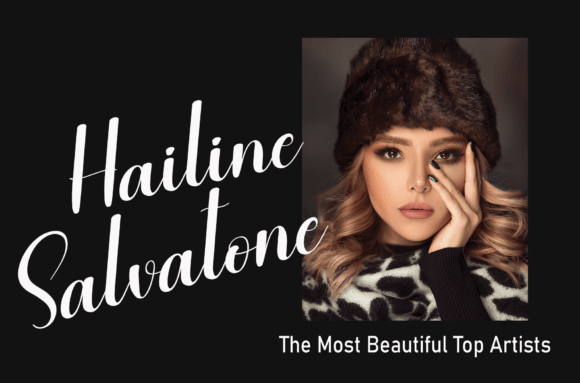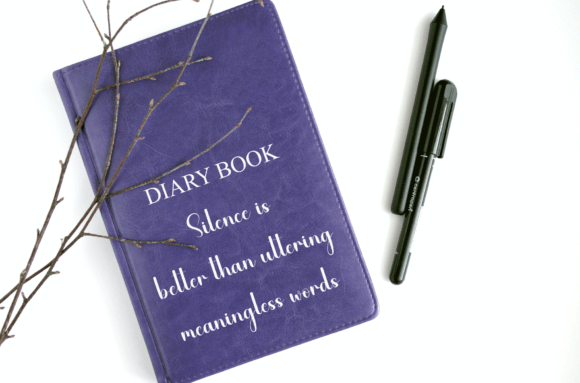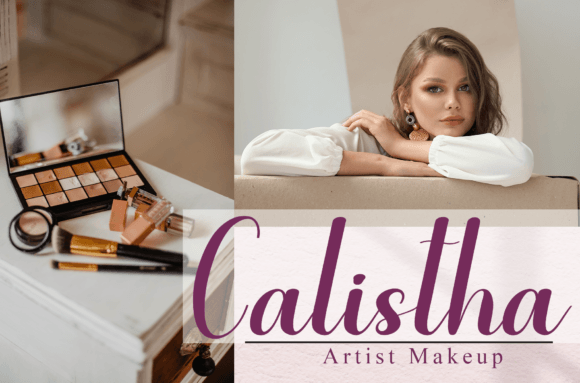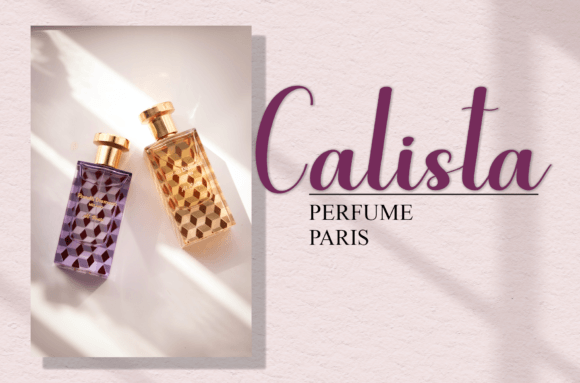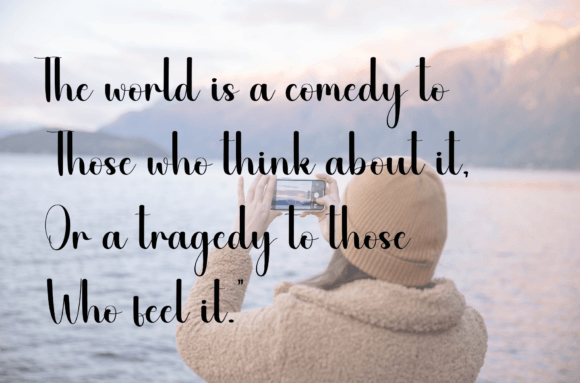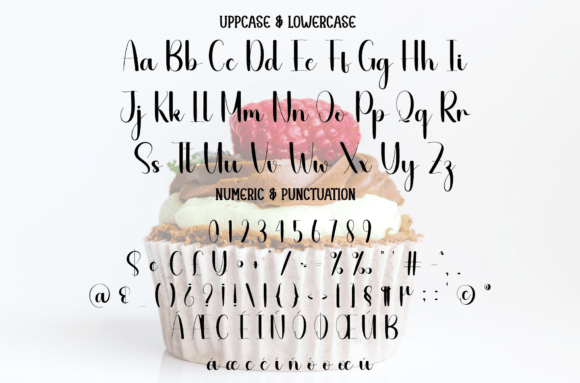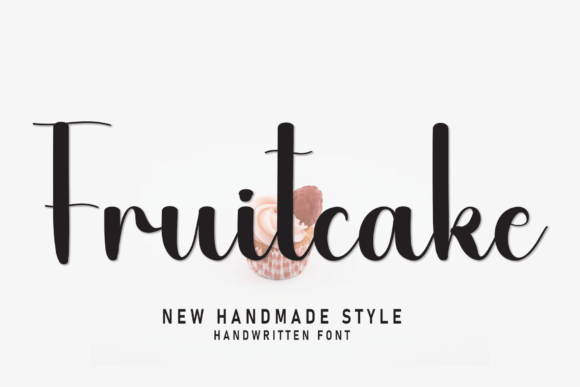
Fruitcake Font: The Sweet and Friendly Handwritten Font for Your Design Needs
Are you looking for a font that can add a touch of sweetness and friendliness to your designs? Look no further than the Fruitcake Font! This beautiful handwritten font is perfect for creating wedding invitations, cards, and other designs that require a fun and playful touch.
What is Fruitcake Font?
Fruitcake Font is a sweet and friendly handwritten font that is designed to bring a sense of freshness and neatness to your designs. Its unique and elegant style makes it ideal for a variety of design projects, from wedding invitations and cards to posters and social media graphics.
Characteristics of Fruitcake Font
Fruitcake Font has several characteristics that make it stand out from other fonts. Some of its key features include:
• Sweet and Friendly: Fruitcake Font has a sweet and friendly tone that makes it perfect for designs that require a personal touch.
• Handwritten Style: The font has a beautiful handwritten style that gives it a unique and elegant look.
• Fresh and Neat: Fruitcake Font is designed to be fresh and neat, making it perfect for designs that require a clean and modern look.
• Versatile: The font is versatile and can be used for a variety of design projects, from wedding invitations and cards to posters and social media graphics.
Uses of Fruitcake Font
Fruitcake Font is a versatile font that can be used for a variety of design projects. Some of the most popular uses of the font include:
• Wedding Invitations: Fruitcake Font is perfect for creating beautiful and elegant wedding invitations that set the tone for the big day.
• Cards: The font is ideal for creating greeting cards, birthday cards, and other types of cards that require a personal touch.
• Posters: Fruitcake Font can be used to create eye-catching posters that grab the attention of your audience.
• Social Media Graphics: The font is perfect for creating social media graphics that require a fun and playful touch.
Why Choose Fruitcake Font?
There are several reasons why you should choose Fruitcake Font for your design needs. Some of the benefits of using the font include:
• Unique and Elegant: Fruitcake Font has a unique and elegant style that sets it apart from other fonts.
• Easy to Read: The font is easy to read, making it perfect for designs that require a clear and concise message.
• Versatile: Fruitcake Font is versatile and can be used for a variety of design projects.
• High-Quality: The font is of high-quality, making it perfect for professional designs.
Tips for Using Fruitcake Font
Here are some tips for using Fruitcake Font in your designs:
• Use it for Headings: Fruitcake Font is perfect for headings and titles, as it adds a touch of elegance and sophistication to your designs.
• Pair it with Other Fonts: The font can be paired with other fonts to create a unique and interesting look.
• Use it for Body Text: Fruitcake Font can be used for body text, especially for designs that require a personal touch.
• Experiment with Colors: The font looks great in a variety of colors, so don’t be afraid to experiment and find the perfect color for your design.
In conclusion, Fruitcake Font is a sweet and friendly handwritten font that is perfect for designers and crafters who want to add a touch of elegance and sophistication to their designs. Its unique and elegant style makes it ideal for a variety of design projects, from wedding invitations and cards to posters and social media graphics. With its versatility, high-quality, and ease of use, Fruitcake Font is a great addition to any designer’s toolkit.